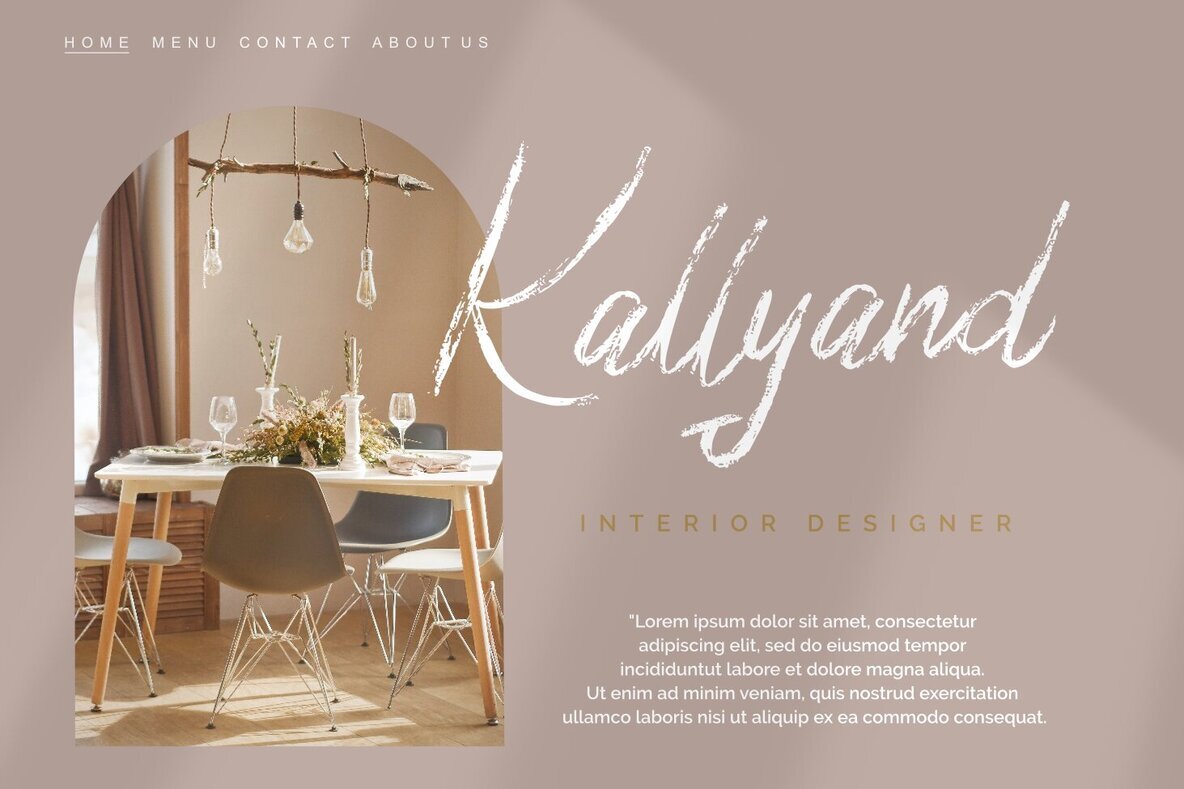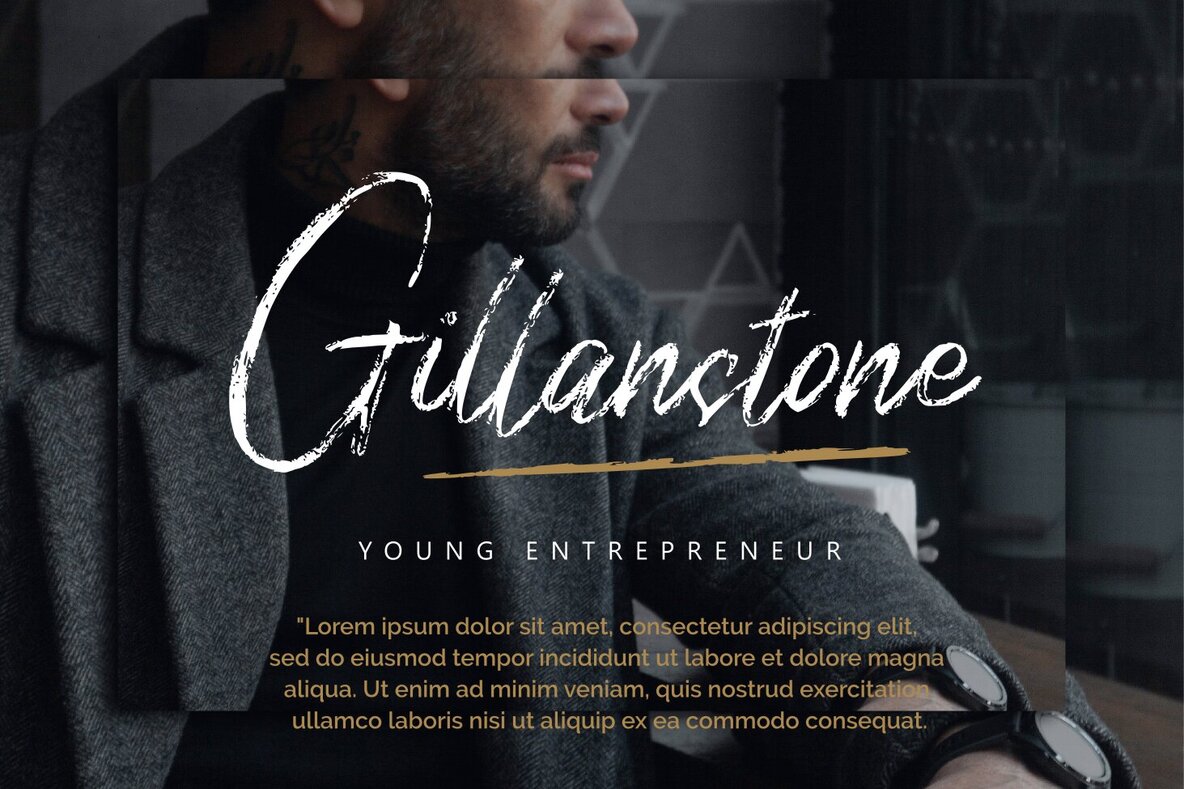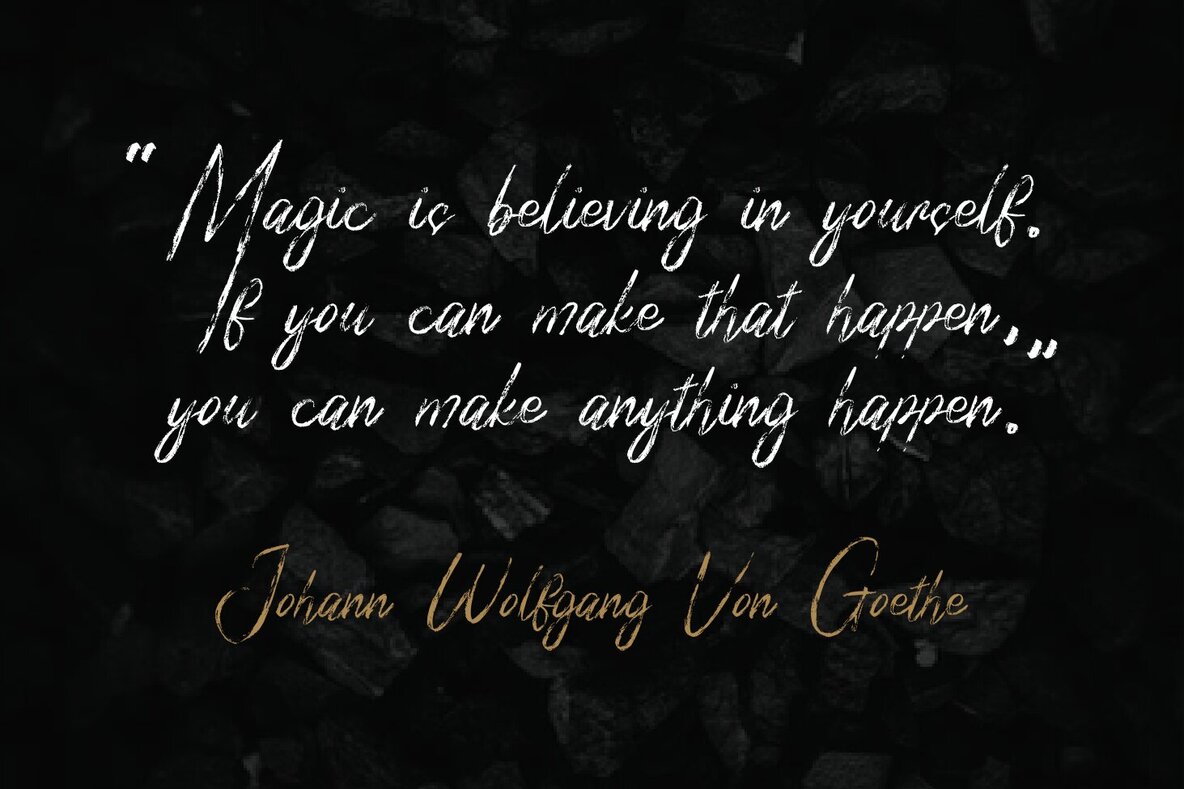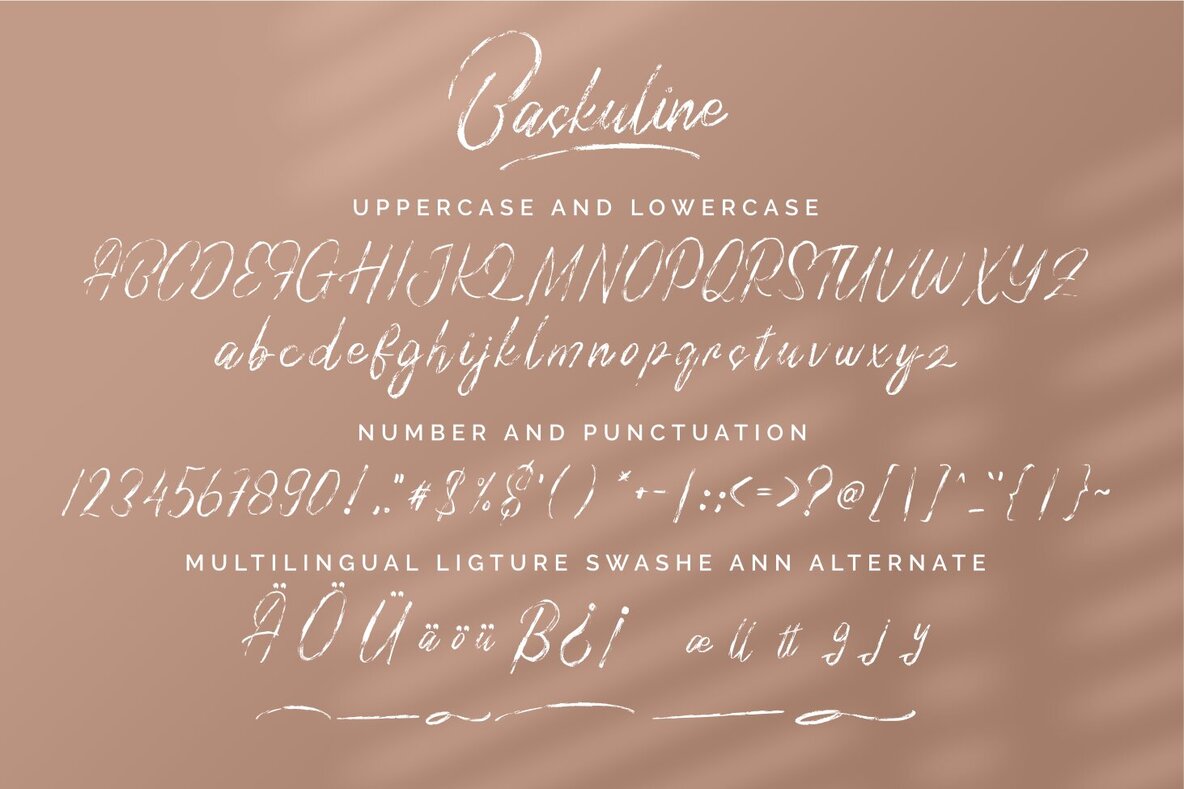
Baskuline Font
Baskuline Regular
Baskuline offers a unique blend of modern appeal and coarse texture, making it an ideal choice for a variety of projects. From wedding invitations to social media posts and branding initiatives, its beautifully flowing design adds a distinctive touch to your creative works. We hope you enjoy using Baskuline. Please feel free to share any thoughts or feedback. Thank you for purchasing!Baskuline: A Modern Handwritten Font with Flowing Style